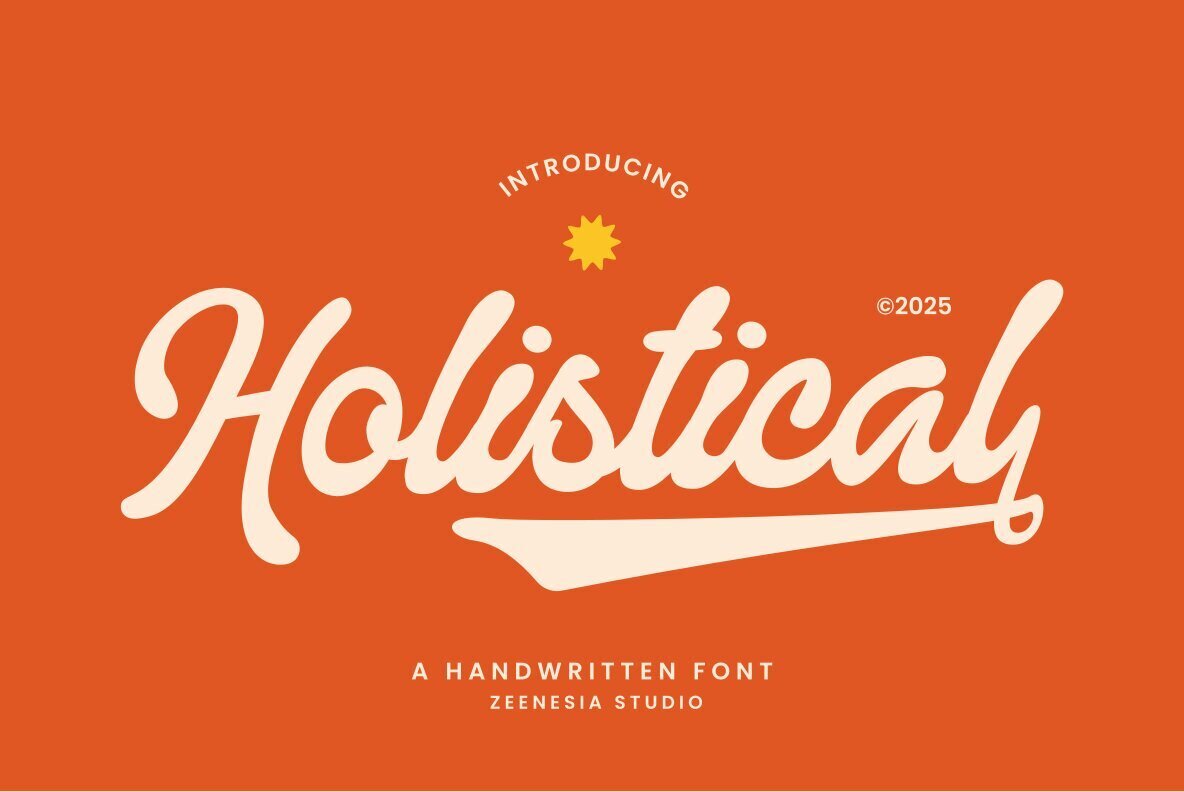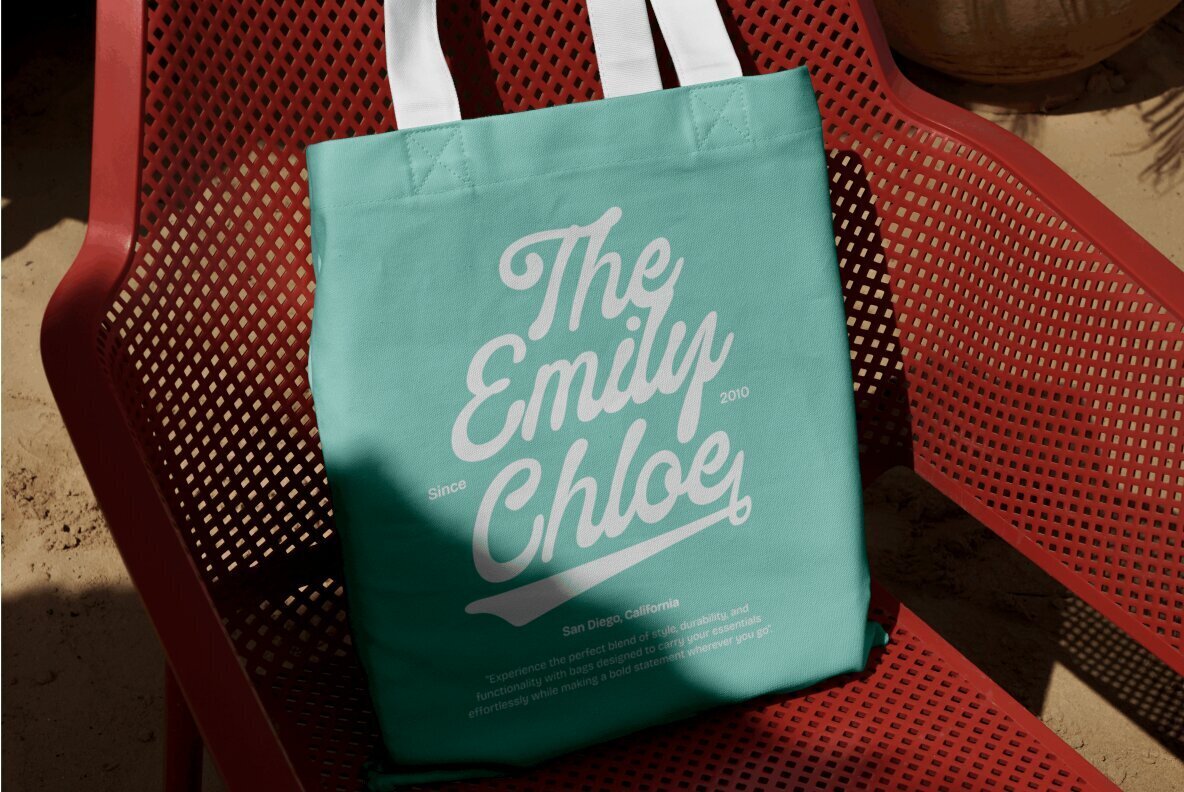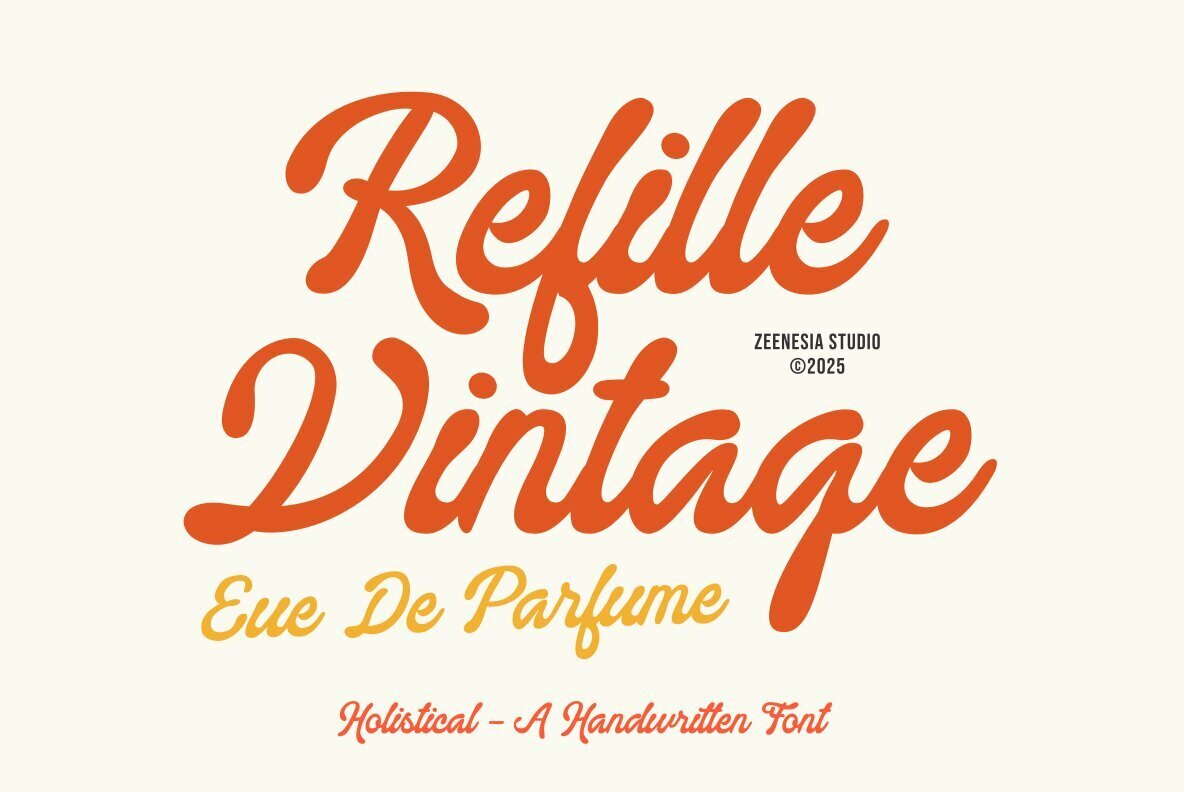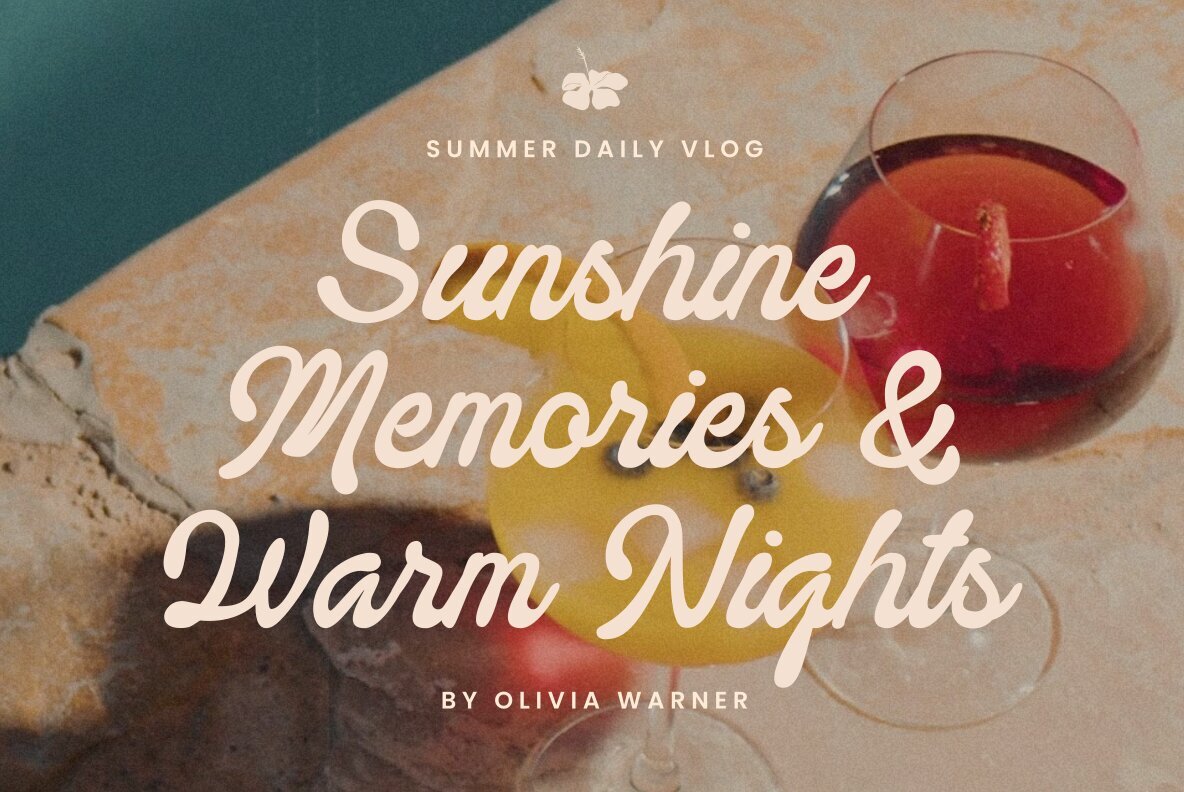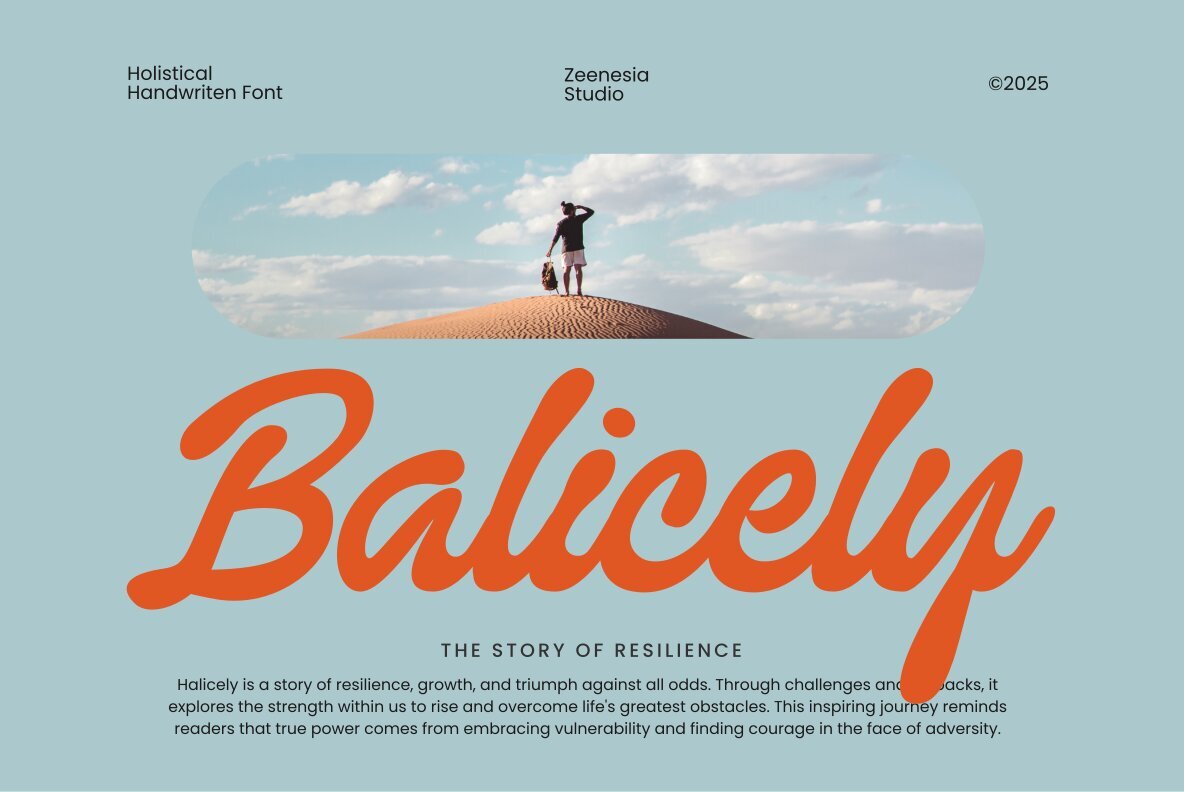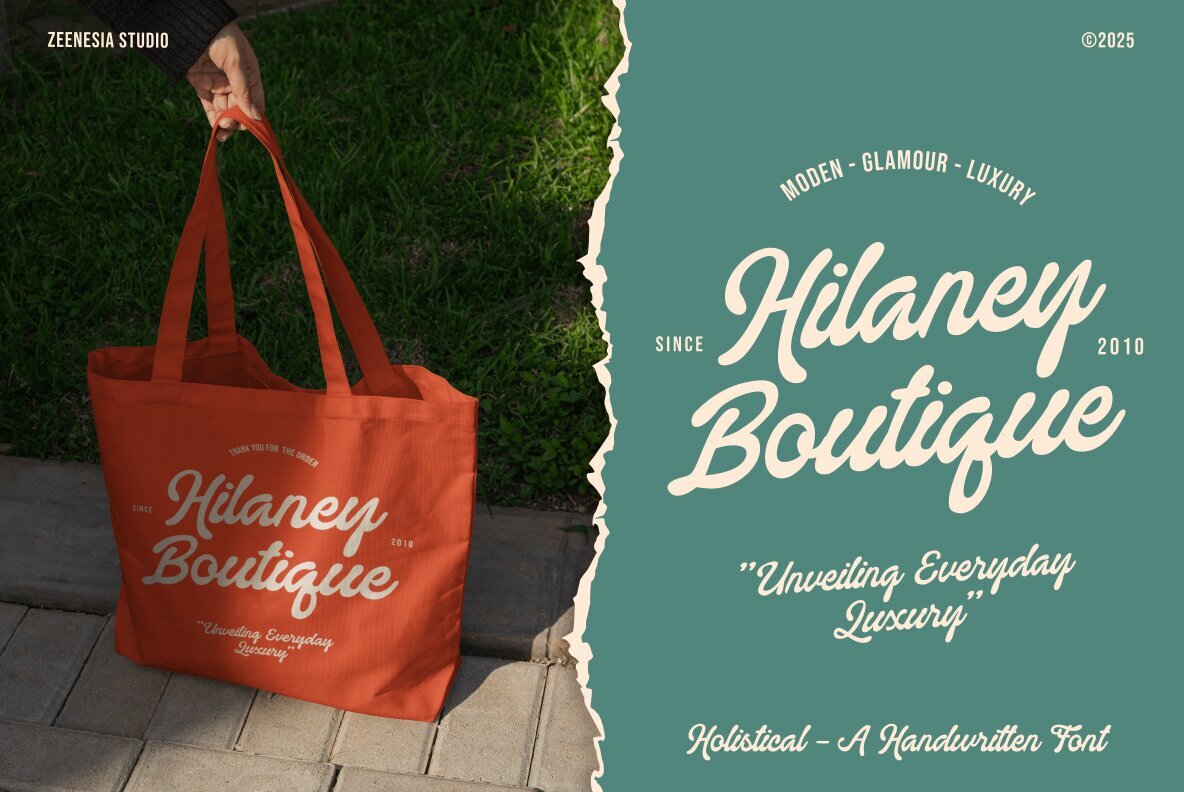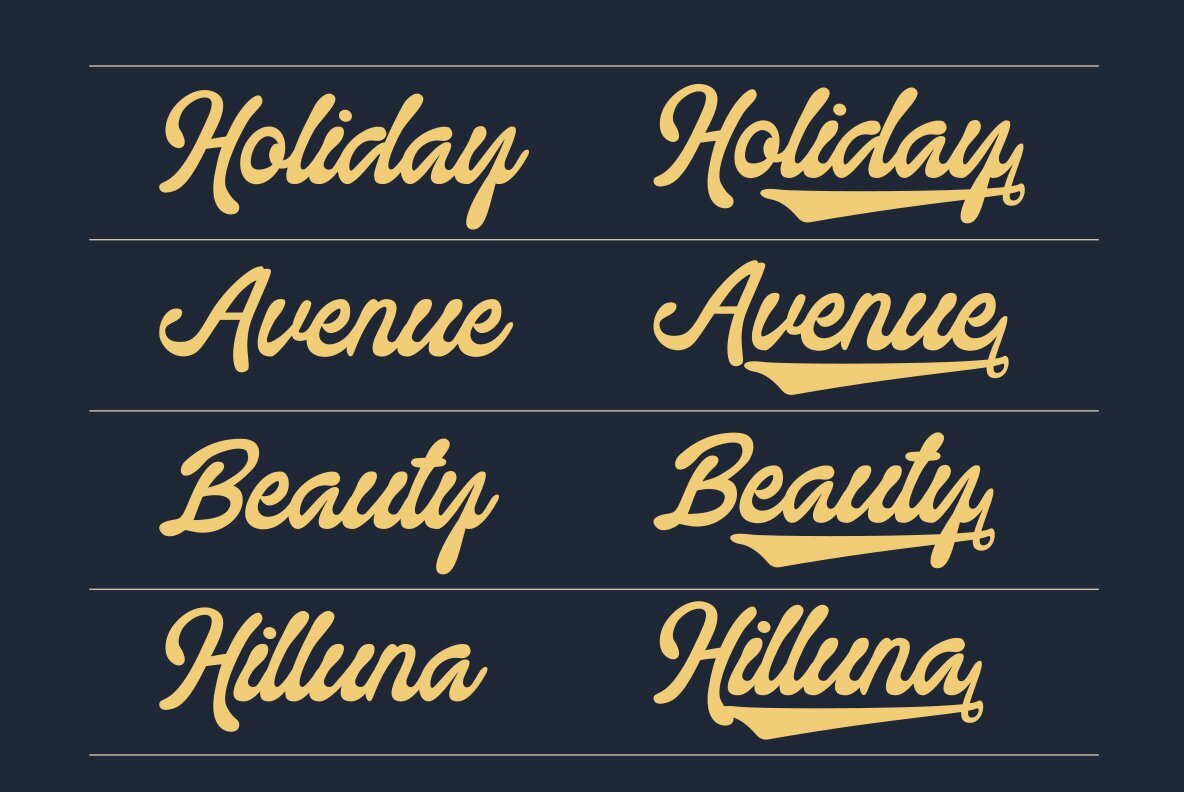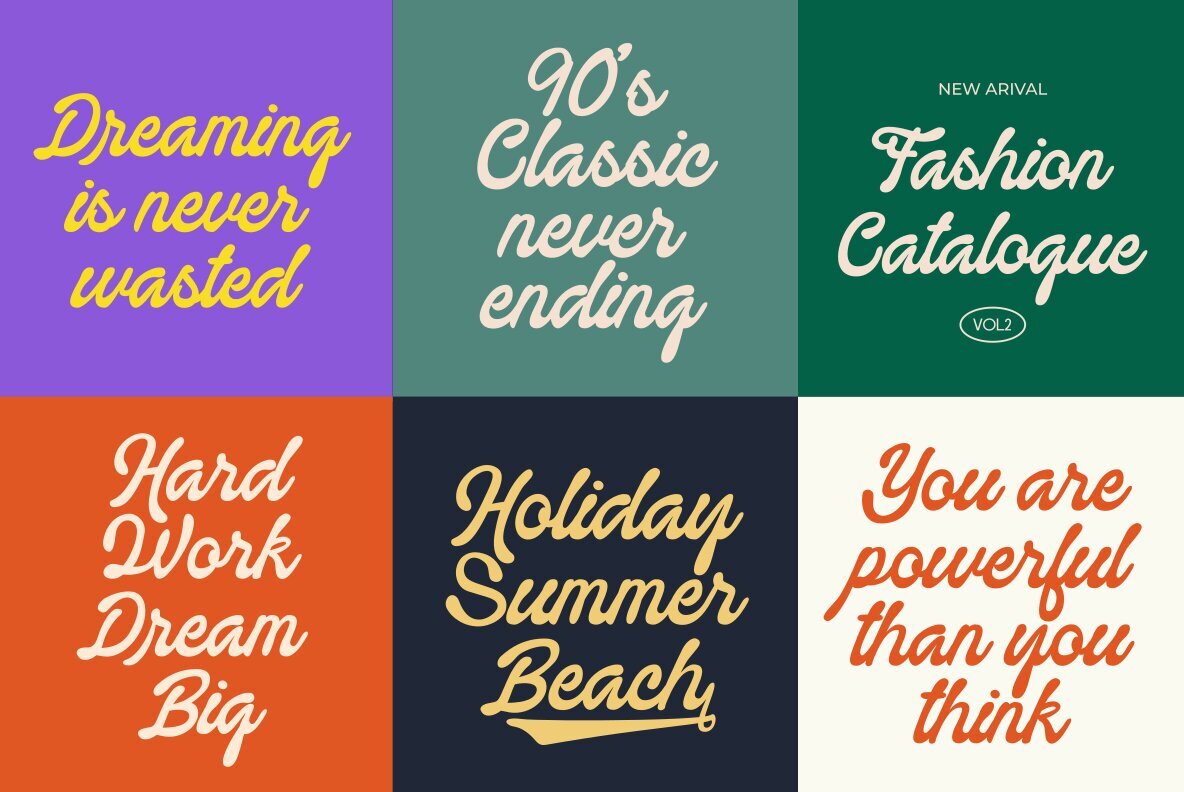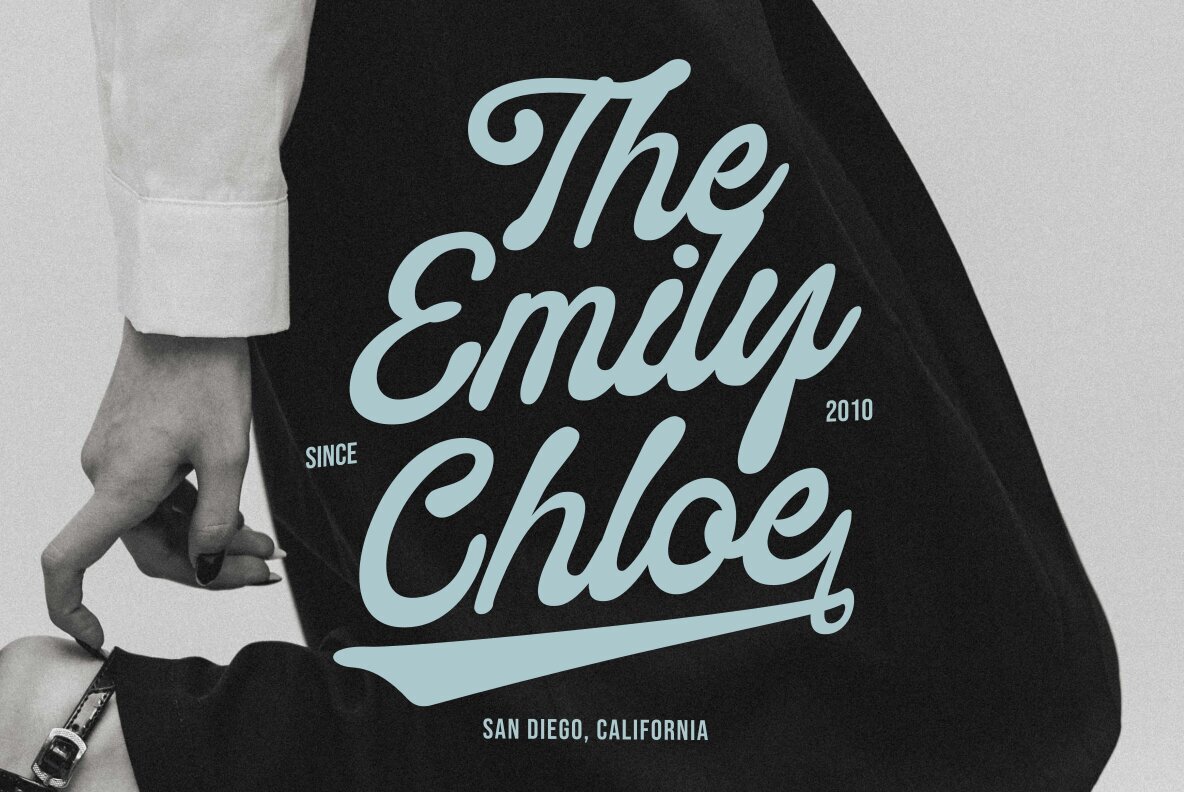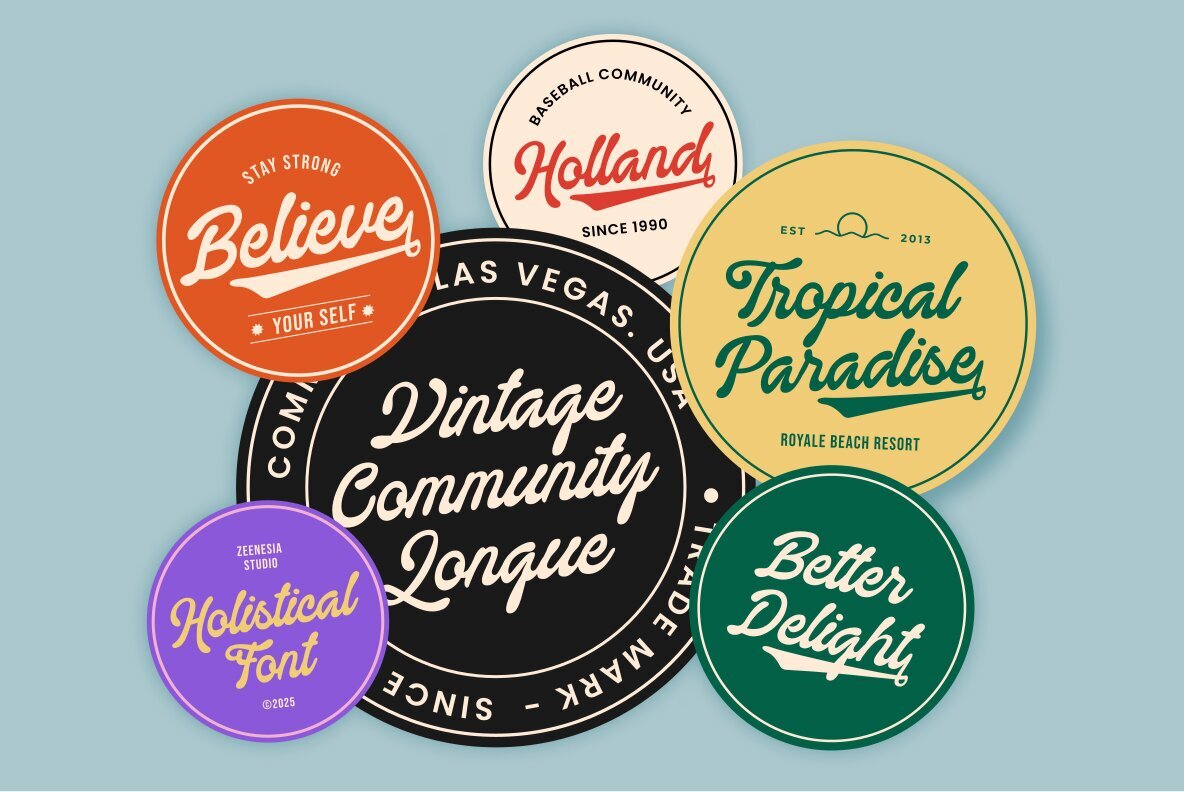
Holistical Font
Holistical Regular
Holistical is a striking handwritten font that seamlessly marries elegance and individuality. Its fluid strokes and organic flow make it ideal for diverse design projects such as branding, invitations, logos, and social media content. Drawing inspiration from mindful writing, Holistical radiates warmth and authenticity, enriching every letter with creativity. Whether you're working on a dreamy venture or crafting heartfelt messages, Holistical brings a graceful, expressive quality that resonates with the soul. Its handcrafted style provides not only aesthetic appeal but also excellent readability, making it a font that tells a story with every stroke.Holistical: The Art of Handwritten Elegance